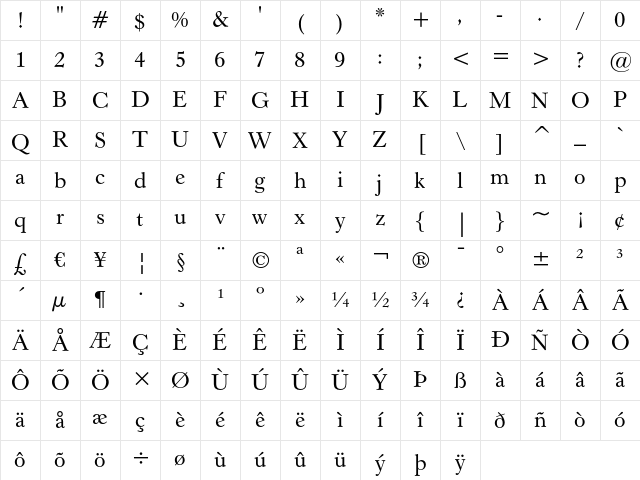
Revival 555 Semi Bold
Style: Semi Bold
Revival 555 Family
Revival 555 Semi Bold
Complete Revival 555 Semi Bold glyph index. Displaying only characters natively supported by Revival 555 Semi Bold font.
Design Context for Revival 555
Revival 555 is a composed and adaptable typeface that performs quietly and consistently across a wide range of design contexts. Its bold stroke weight gives it real presence on the page.